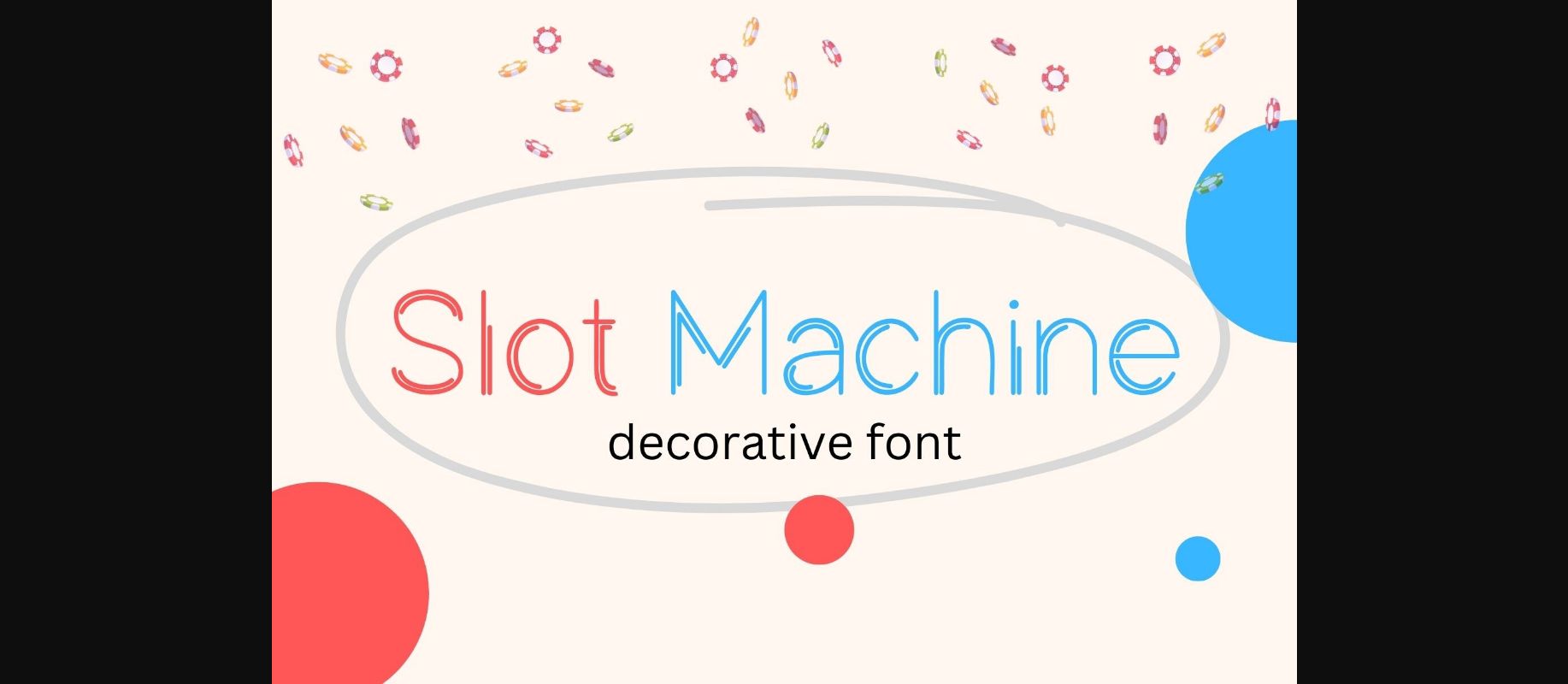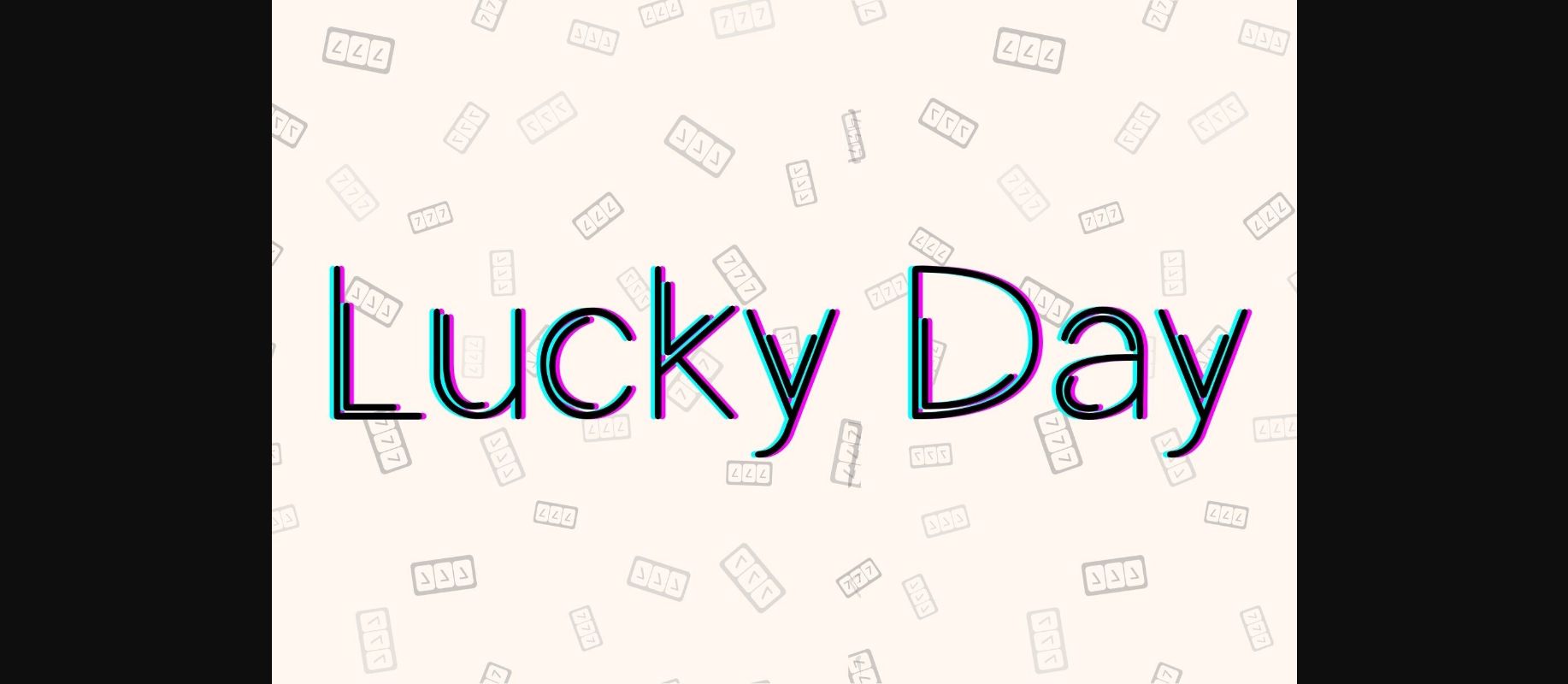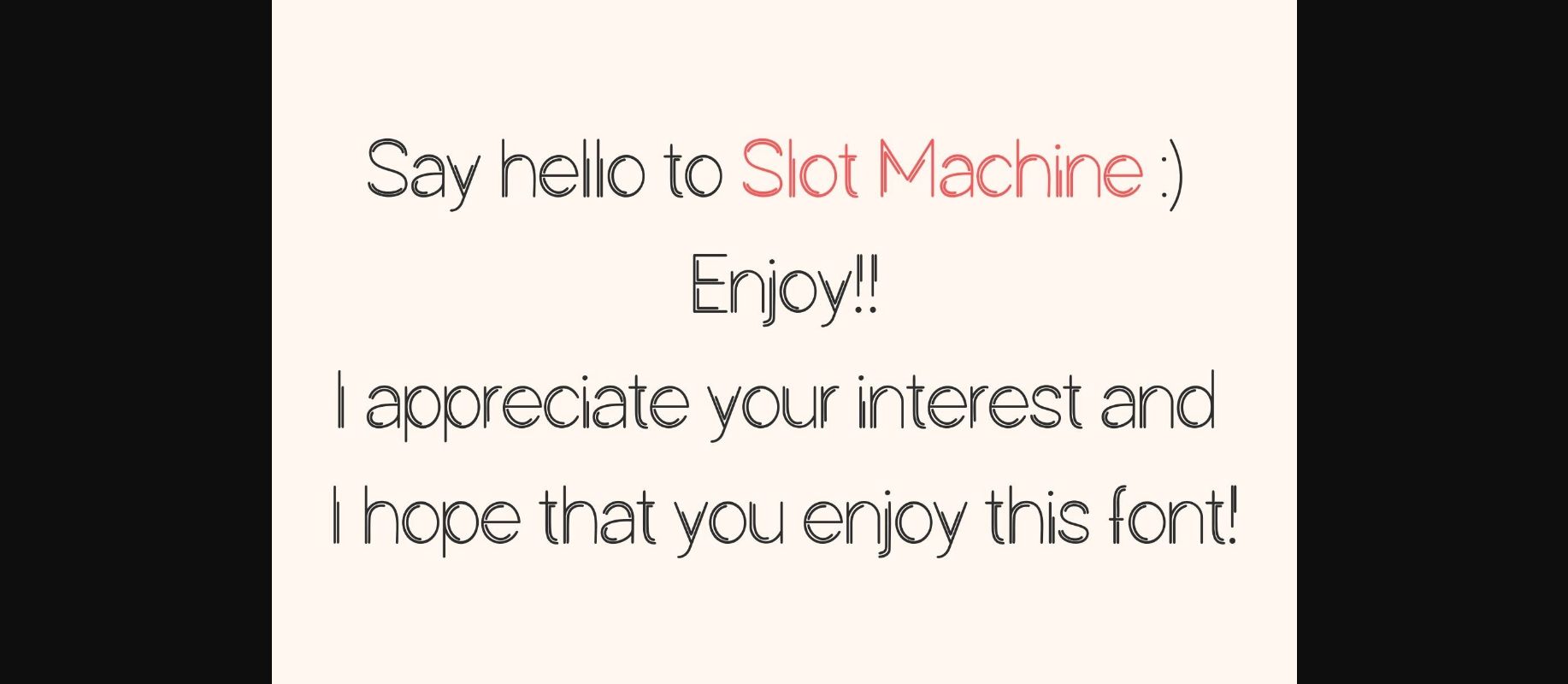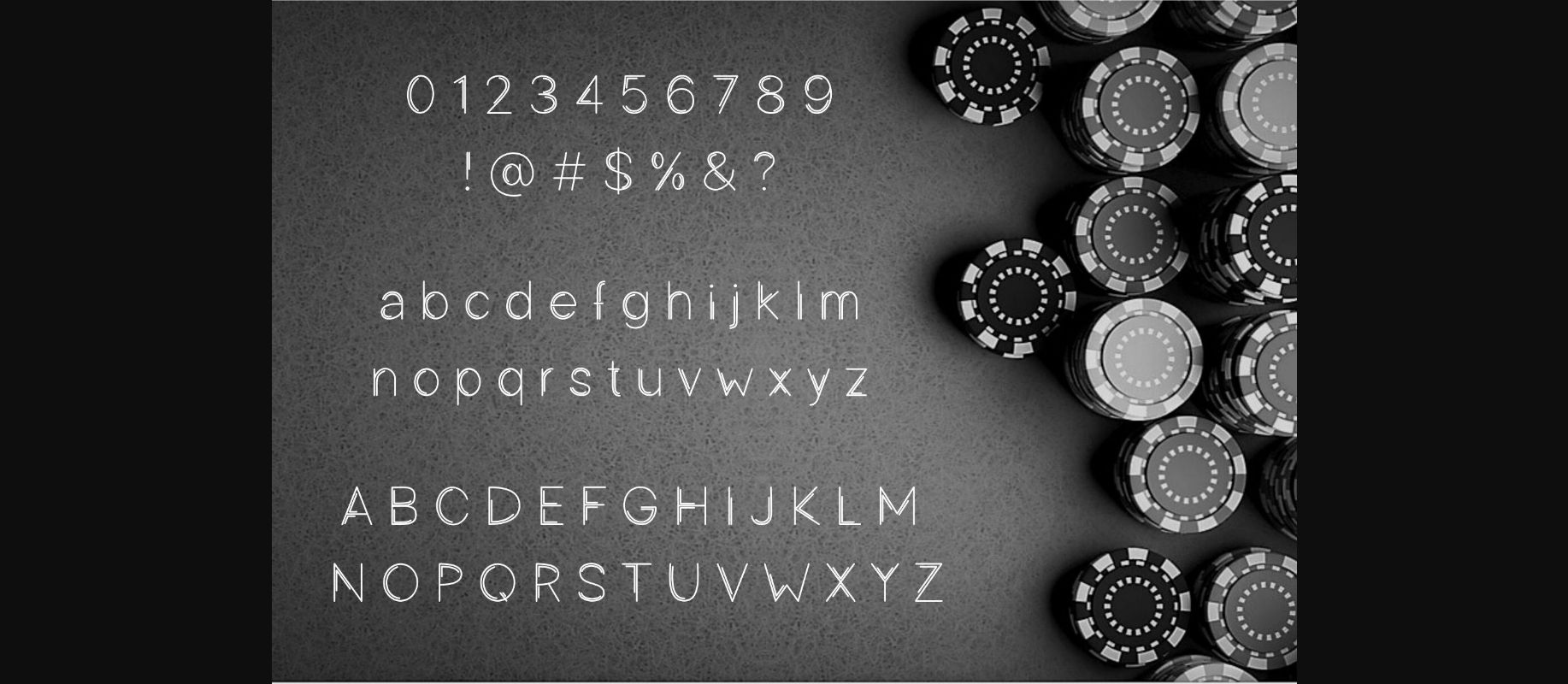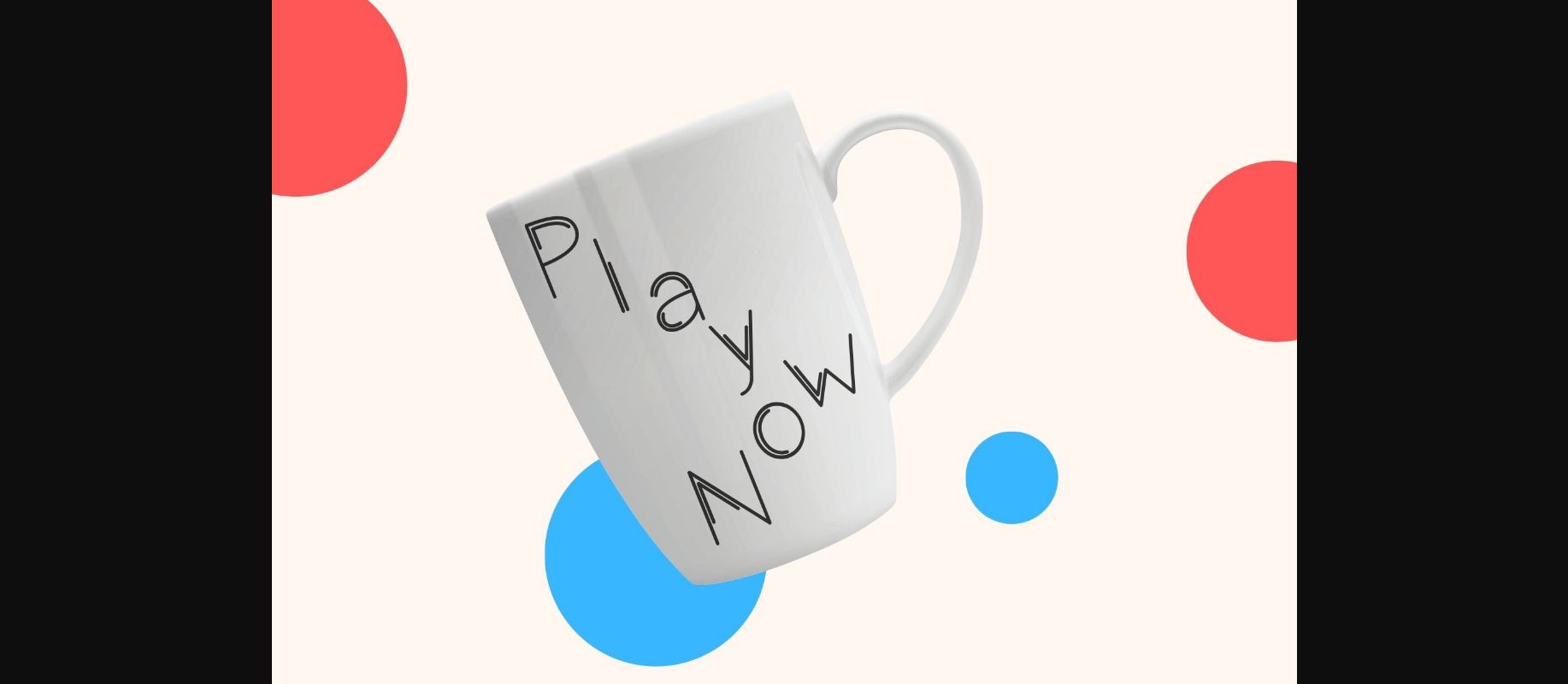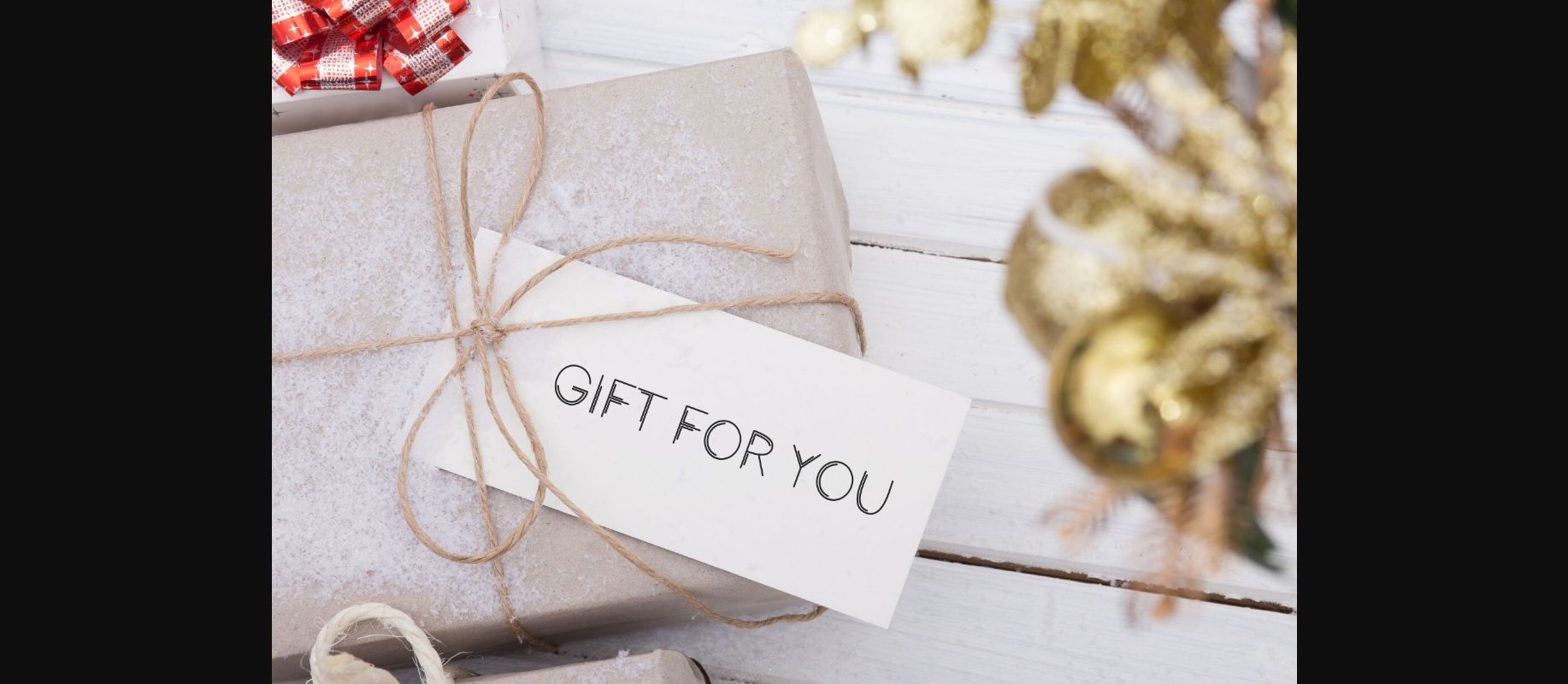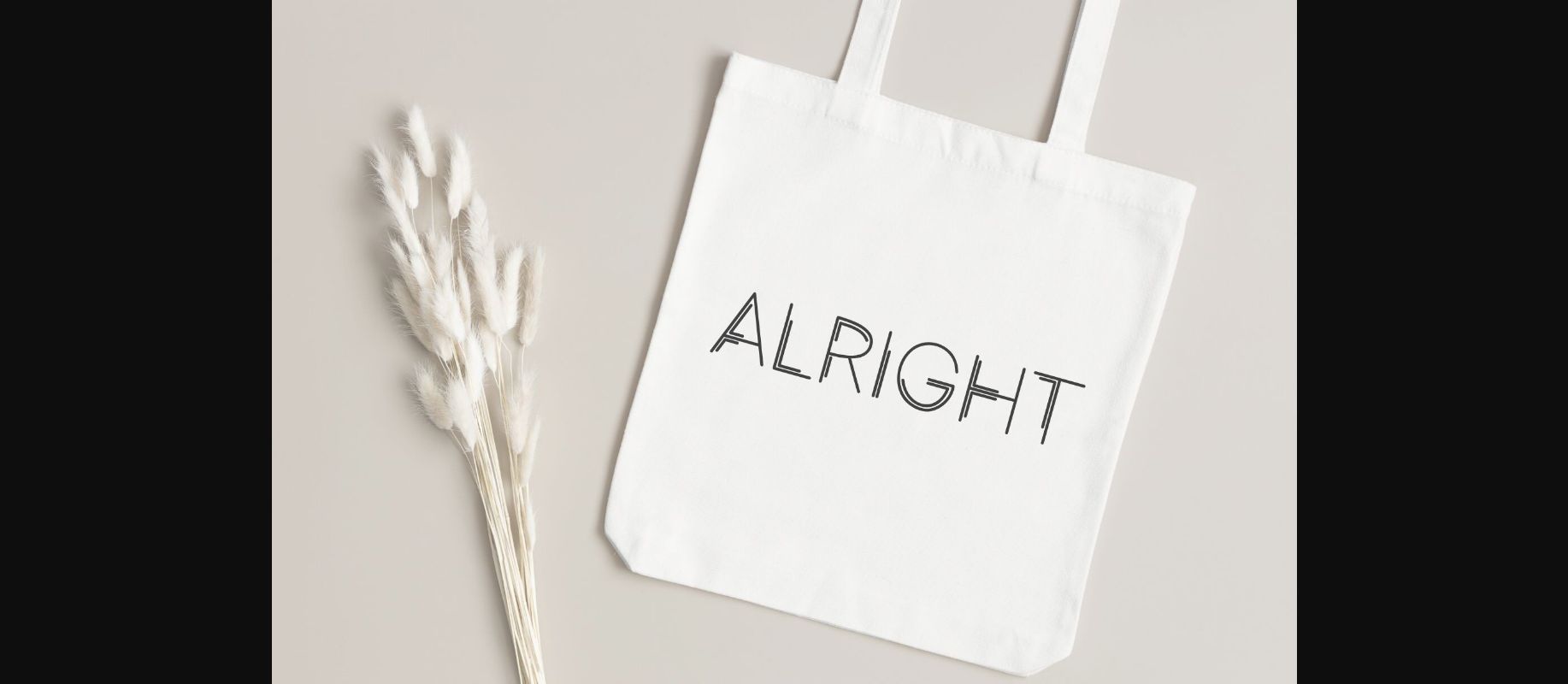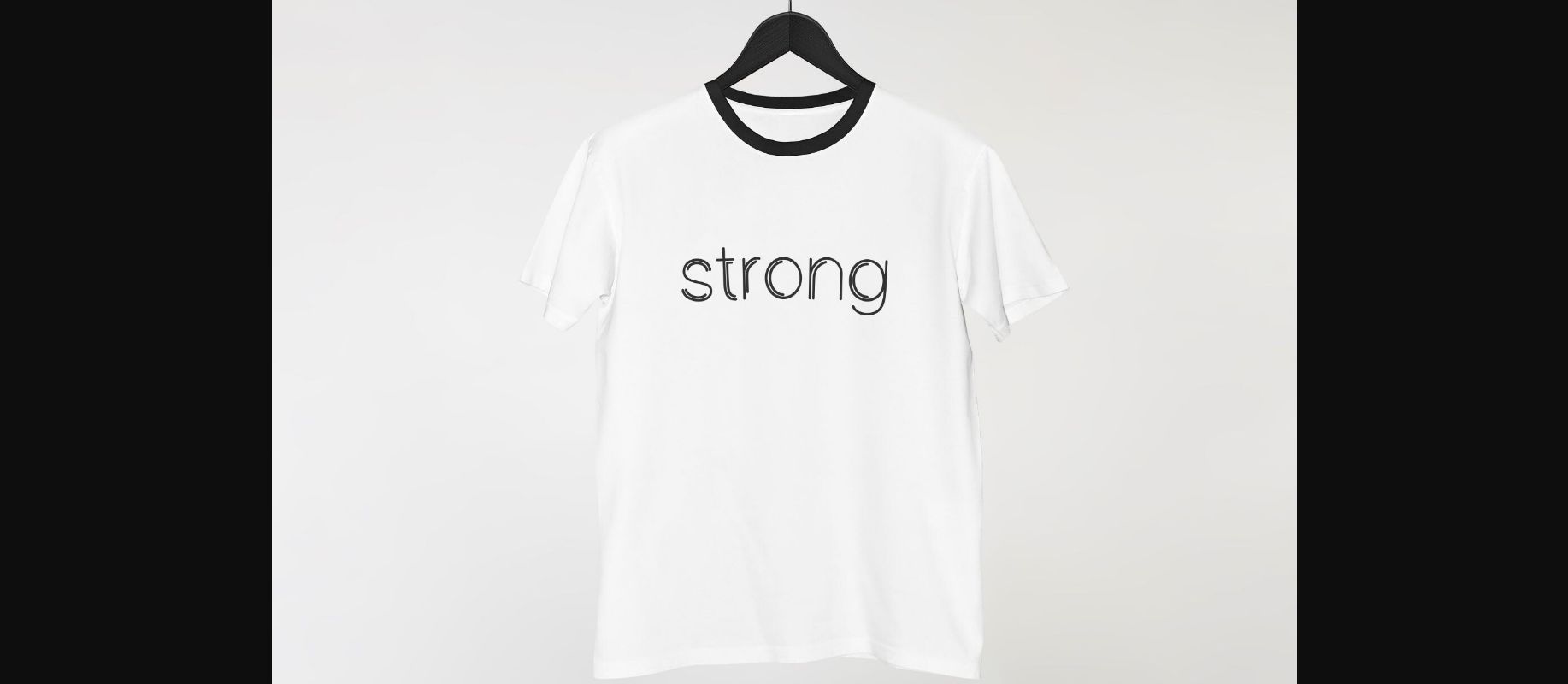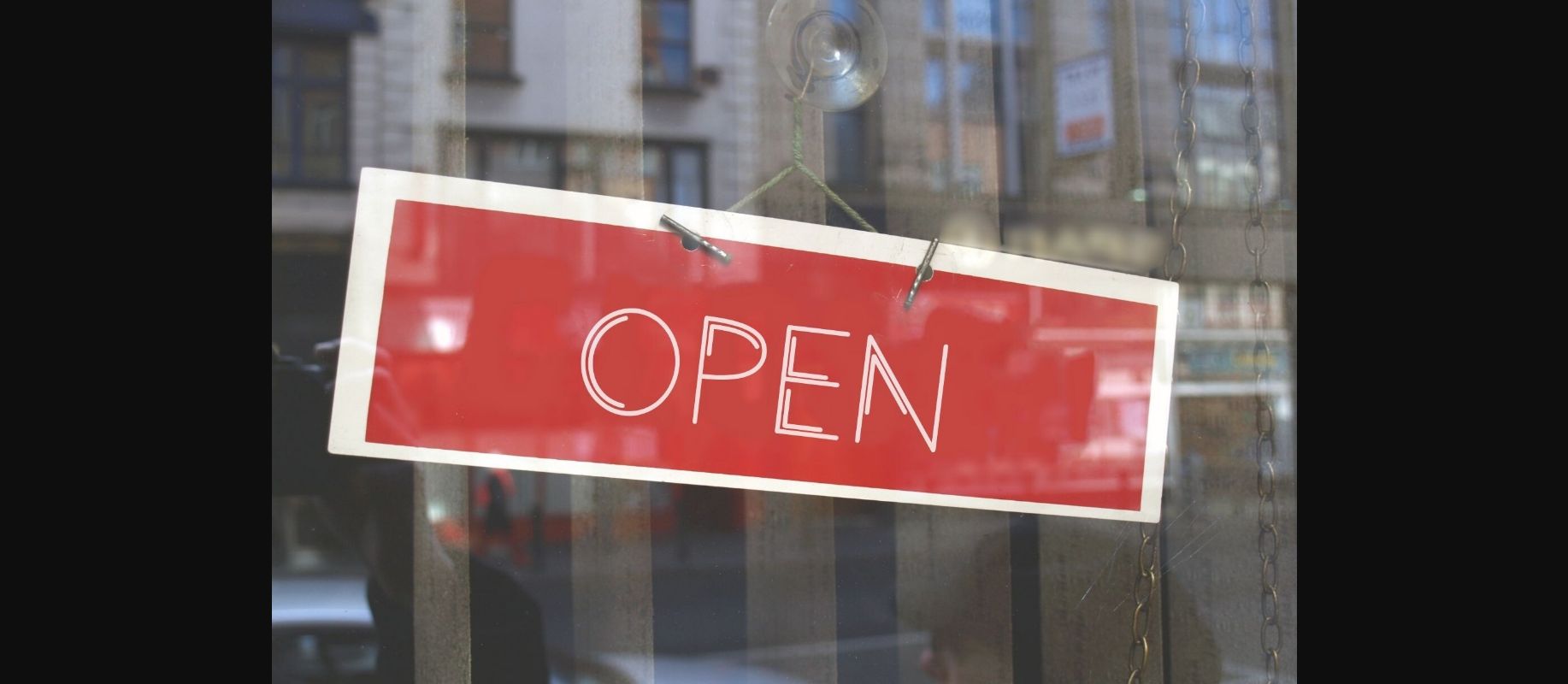
Slot Machine Font
About Slot Machine Font
Slot Machine is a decorative font that can be used within your documents for commercial and personal use! It is perfectly suitable for numerous uses such as digital note-taking, digital planners, quotations, banners, logos, product packaging, titles, headers, menu lists and so miuch more.